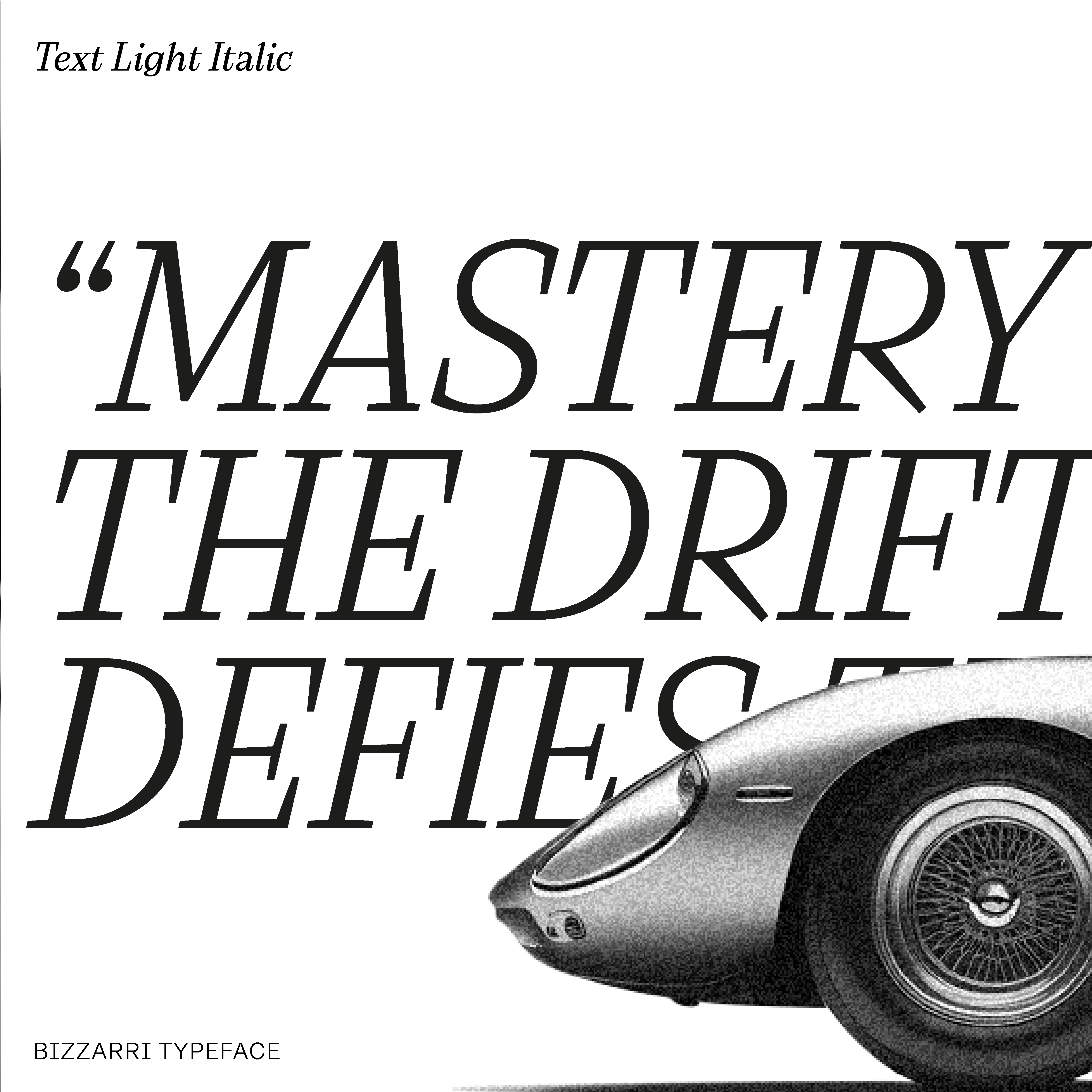
Q&A Diana Ovezea
We have a fabulous selection of international guests critics visiting us at TypeParis Summer25. We wanted to find out a little more about each of them, so have presented them with a series of questions which they have generously taken the time to answer. Discover Diana Ovezea’s interview.
Biography Diana Ovezea is a Romanian-born type designer and typographer based in Zwolle, The Netherlands, and a graduate of the Type and Media class of 2013. She has worked with multiple type foundries, gaining extensive experience in developing and proofing complex font families. Since 2021, she has co-run Blast Foundry with Barbara Bigosińska, offering custom type solutions and quality assurance services to clients and foundries like CoType, Sociotype, and ITF.
Interview
What’s your favourite way to start the day?
Diana Ovezea I usually start my day with a coffee or two, sometimes three. Since I work for myself, I have the flexibility to adjust my schedule. Living in a place where sunny days are numbered, I sometimes shift my work to later in the day so I can enjoy the morning or get outside. I’m not really a morning person anyway, so having that freedom is great. I generally prefer a dedicated workspace, though the past few years I had to be flexible because of Covid and moving houses. I spent about a year working from my dining table, which wasn’t ideal, so I’m really grateful to have my own workspace again now in our new house. Depending on what I’m doing, I switch between a bouncy chair and a tiny couch. This helps me mentally shift between creative work, emails, and technical stuff like kerning or font QA.
Favorite kind of music to listen to while working?
Diana Ovezea I definitely don’t prefer absolute silence. I usually listen to dance music with a strong beat to keep my energy up. Sometimes, I’ll put on a TV series or background noise during repetitive tasks — I don’t really listen to it, but it weirdly helps me focus.
What is your ratio of self-initiated typefaces vs. typefaces for clients?
Diana Ovezea I’d say about 80% of my projects are for clients and 20% are self-initiated right now. While I love being creative, I’ve found that I thrive when I’m working within someone else’s creative vision. Collaborating with clients, especially larger agencies, really energizes me. It’s like a creative ping pong match: they bring the concept and brand insight, and I bring the technical and design expertise — we both play into our strengths. That dynamic gives me so much fulfilment, that it often sparks creative energy for new font ideas. I do want to shift the balance a bit and release more of our own work, but client projects take priority for now.
“Collaborating with clients, especially larger agencies, really energizes me.”‍
– Diana Ovezea
What’s your approach designing for an unfamilliar language or script?
Diana Ovezea For me, it’s really important to approach designing for languages or scripts I’m not familiar with a lot of respect. If you’re not deeply familiar with the language or culture, teaming up with native experts is a must. When I’ve worked on Greek or Cyrillic, I’ve always relied on specialists to help guide the process and ensure everything’s accurate and culturally appropriate. It’s a learning process, and that feedback loop is invaluable. If it’s a personal or experimental project, you can be more flexible. But for commercial work, I think authenticity and quality are super important.
What do you think of this trend of free fonts?
Diana Ovezea Free and open source fonts aren’t just a trend; they’ve been part of the industry for a long time now. While I do take issue with the flood of low-quality fonts and unsustainably low pricing, it’s important to remember that free doesn’t automatically mean bad. There are excellent free fonts out there that have had a lot of care and investment put into them (like IBM Plex and the fonts on Fontshare). In the end, clients will choose what fits their needs, and those who value quality and craftsmanship will find their way to the right place.
Do you remember when you decided to pursue your career in design and who were your mentors?
Diana Ovezea In high school, I wasn’t sure what I wanted to do — I just knew I wanted something that combined math, creativity, and psychology. Then one day I stumbled on a university brochure in our counseling office, and it clicked that graphic design might be the perfect fit. It felt like the answer to all my questions. I didn’t have a portfolio yet, so I did a foundation year, and then went on to study graphic design at the New Design University in St. Pölten, Austria. That’s what set me on this path. I was really lucky with my teachers at there — they were deeply passionate about typography and typefaces, and their enthusiasm was contagious, especially our calligraphy teacher Giovanni de Faccio. One day, our typography teacher Ulli Pötschke told me about the TypeMedia master’s in The Hague. She had full confidence that I should apply and that I would get in. To my huge surprise, I did, and that’s where my journey into type design really took off. After TypeMedia, it was also one of our teachers, Paul van der Laan, who offered me a job, became my mentor, and taught me many of the foundational skills that led to the next steps in my type design career.
“You really have to love it and be ready for a long journey. It’s not all about designing beautiful letterforms; the industry has grown so much that you can now specialize in niches others haven’t tapped into yet.”‍
– Diana Ovezea
Do you have words of wisdom for starting designers?
Diana Ovezea You really have to love it and be ready for a long journey. It’s not all about designing beautiful letterforms; the industry has grown so much that you can now specialize in niches others haven’t tapped into yet. Whether it’s marketing, content creation, or font engineering, finding your niche can really set you apart. Dedication, passion, and a respect for the craft will help you thrive in this field.